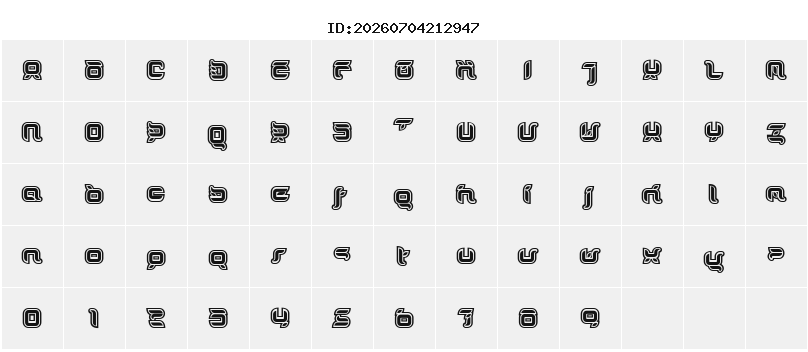
• Font Name: DorisOrangeOutline
• Full Font Name: DorisOrangeOutline
• PostScript Name: DorisOrangeOutline
About DorisOrangeOutline.ttf
DorisOrangeOutline.ttf is a modern, elegant sans-serif font designed for ultimate readability and visual harmony. Perfect for branding, headlines, web design, and print materials.